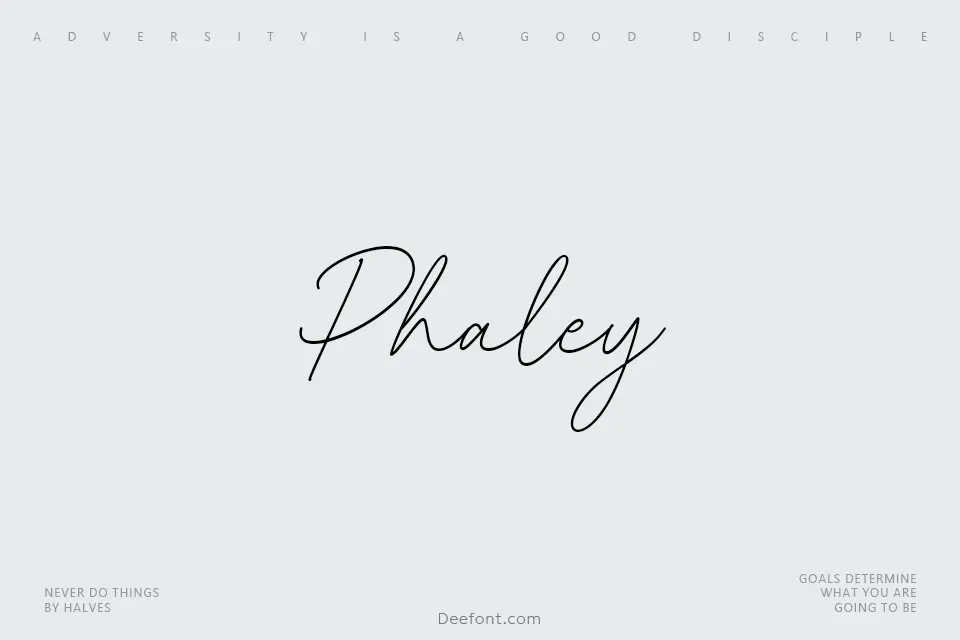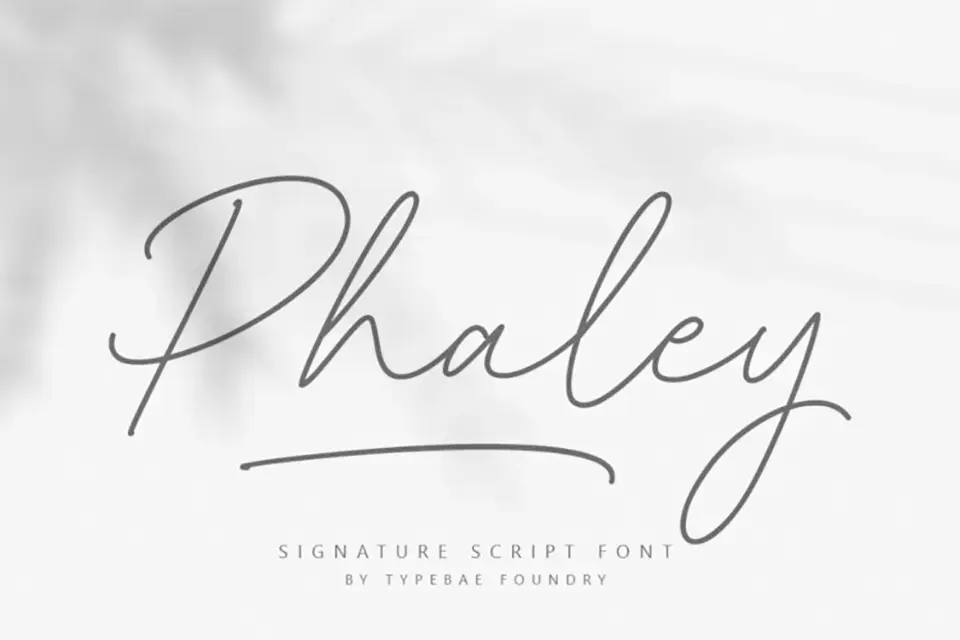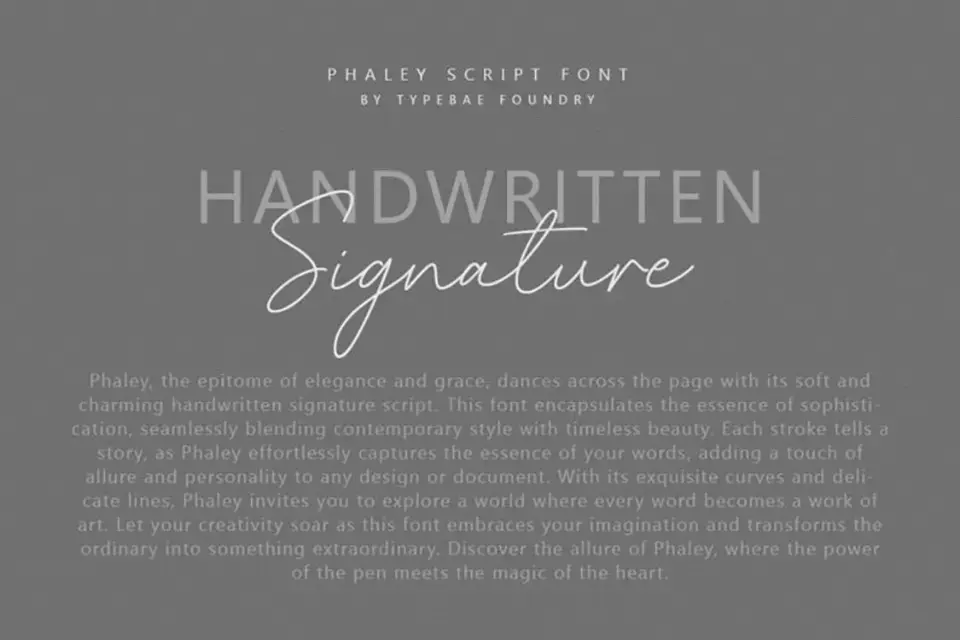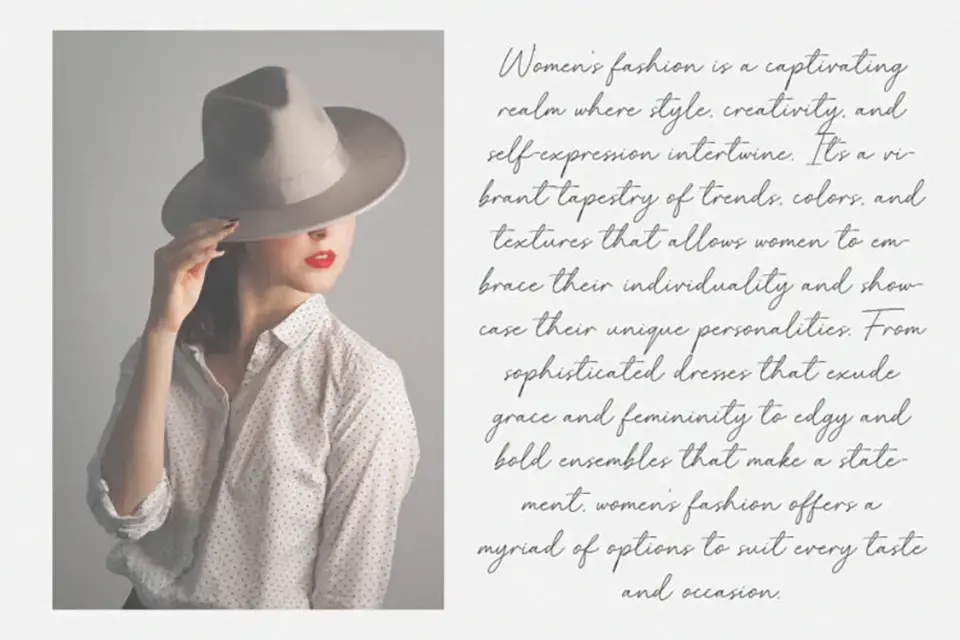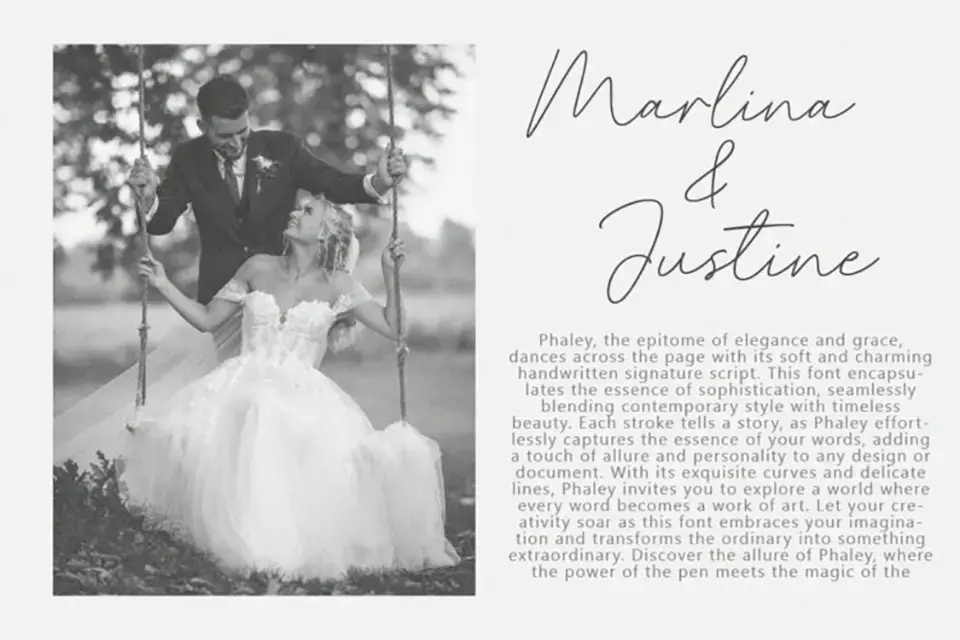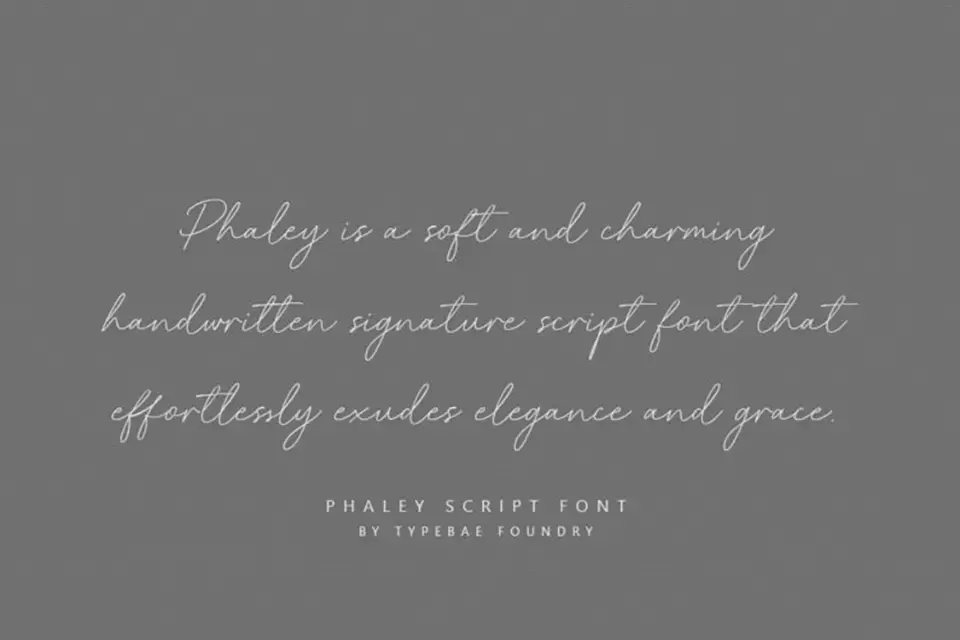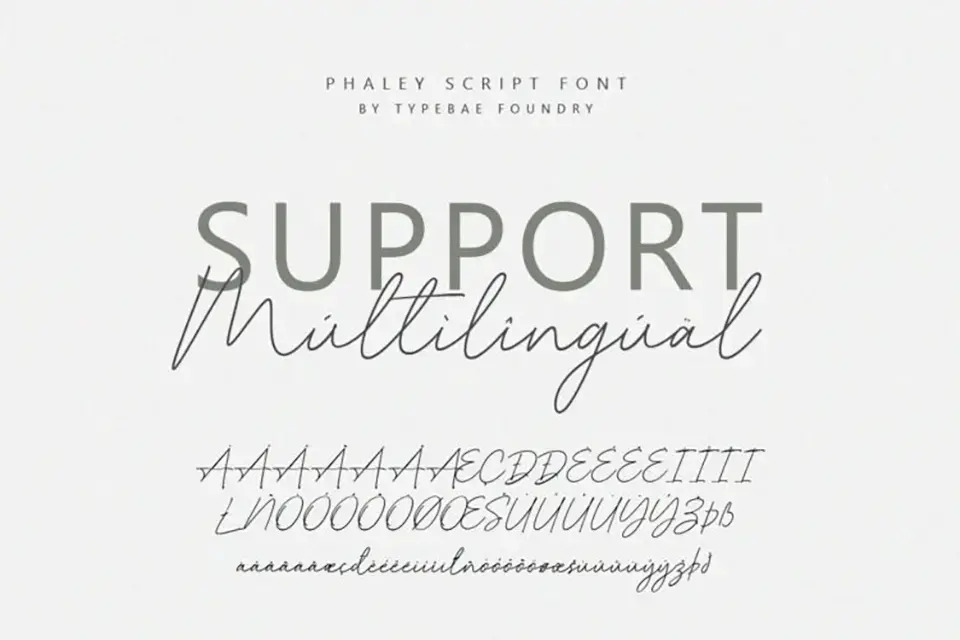
Phaley Font
Unleash creativity with Phaley, a stunning handwritten script font designed by Typebae Foundry. Featuring smooth connections and a natural flow, this typeface captures the essence of modern calligraphy. Perfectly suited for wedding invitations, luxury branding, and signature logos, its elegant strokes provide a genuine hand-crafted feel that stands out in any digital or print display setting.